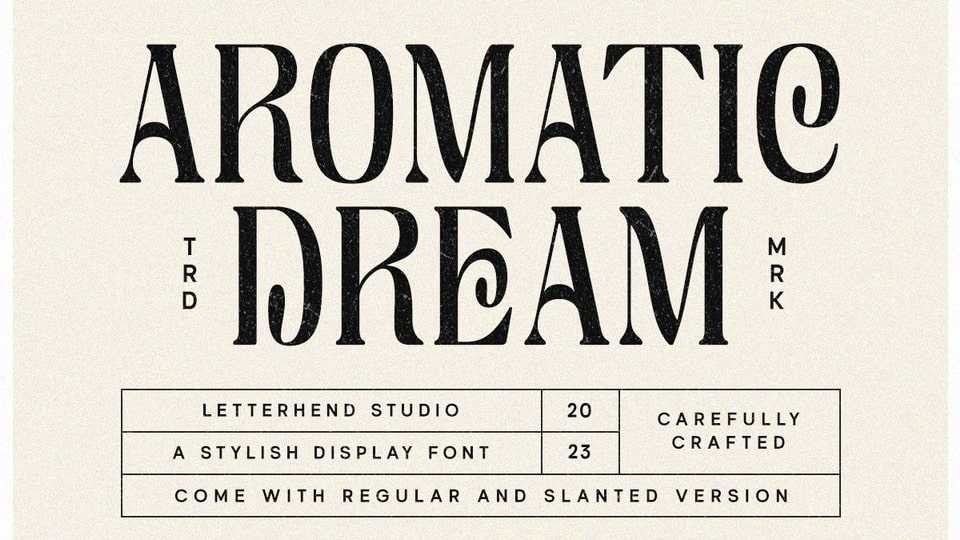
Download Aromatic Dream font, a sophisticated, charming vintage serif typeface with a fashionable touch. Aromatic Dream is specially designed for luxury, elegant, feminine projects, this font is perfectly suitable for creating modern, chic designs.